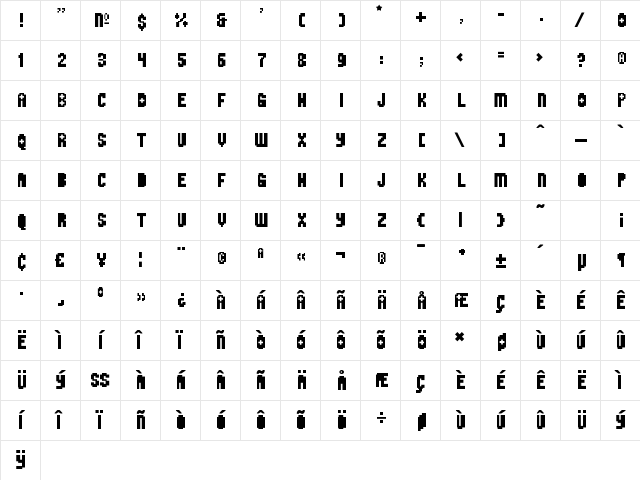
Ambulance Pixie Dust Regular
Design Context for Ambulance Pixie Dust Typeface
Ambulance Pixie Dust takes a measured approach to typography — its balanced proportions and neutral character make it a reliable workhorse for both digital and print work.